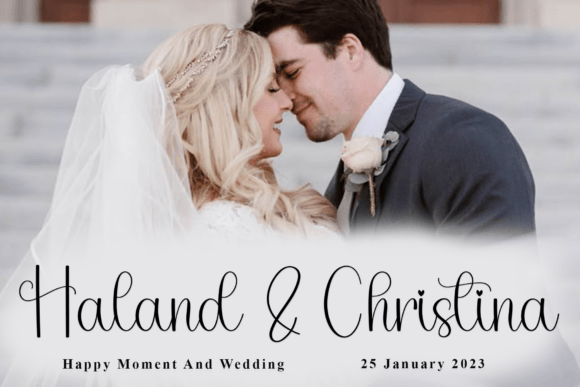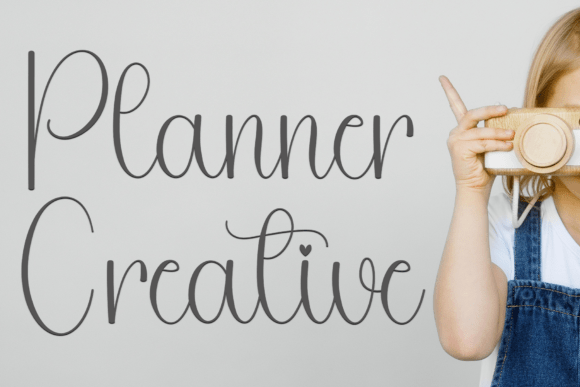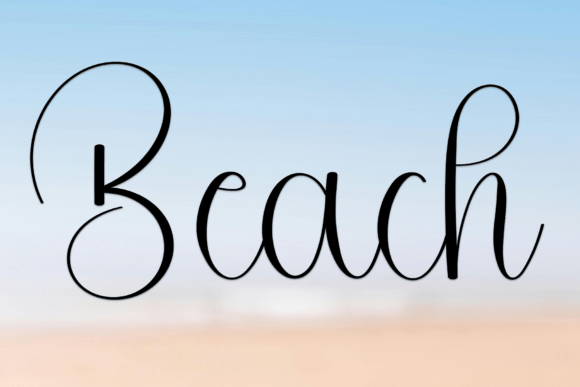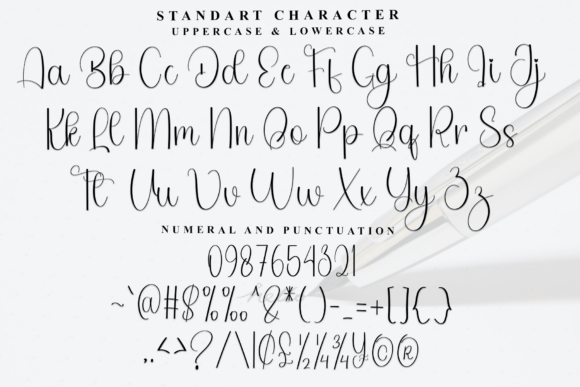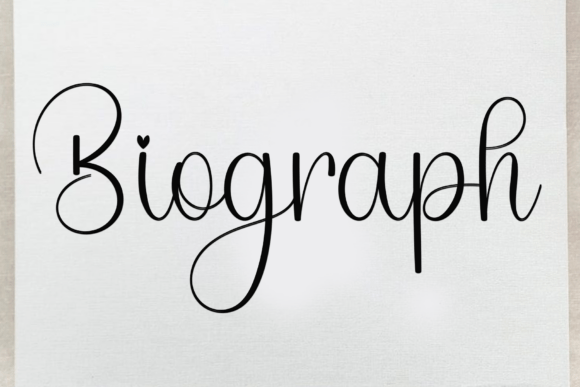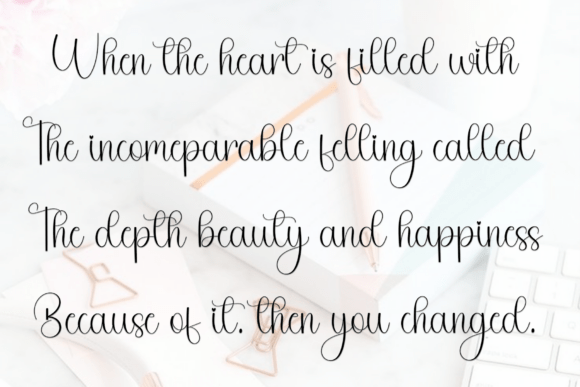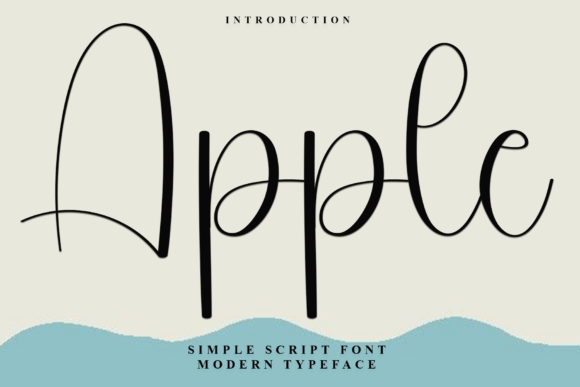
Introducing Apple Font: The Perfect Holiday Typeface
The holiday season is upon us, and what better way to get into the spirit than with a festive and merry typeface? Look no further than Apple Font, a decorative and whimsical font that’s sure to add a touch of enchantment to your designs. Whether you’re creating greeting cards, gift tags, or holiday-themed projects, this font is the perfect choice to bring a cheerful and nostalgic ambiance to your words.
Capturing the Spirit of the Holiday Season
Apple Font is a carefully crafted typeface that’s designed to evoke the magic and wonder of the holiday season. With its intricate details and decorative elements, this font is sure to transport your readers to a world of festive cheer and joy. From the twinkling lights to the snowflakes gently falling, Apple Font brings the spirit of the season to life in a way that’s both elegant and playful.
Whether you’re a professional designer or a crafter looking for a special touch, Apple Font is the perfect choice for your holiday projects. This font is ideal for a variety of applications, including:
- Greeting cards: Create beautiful and unique holiday cards that will stand out from the crowd.
- Gift tags: Add a personal touch to your gifts with custom gift tags that feature Apple Font.
- Holiday-themed projects: From invitations to party decorations, Apple Font is the perfect choice for any holiday project.
One of the best things about Apple Font is that it’s PUA (Private Use Area) encoded, which means you can access all of the amazing glyphs and ligatures with ease. This makes it simple to create beautiful and intricate designs that will impress your friends and family. With Apple Font, you can:
- Access a wide range of decorative elements, including snowflakes, holly leaves, and festive ornaments.
- Create custom ligatures that add a touch of whimsy to your designs.
- Use the font’s built-in swashes and flourishes to add a personal touch to your projects.
Why Choose Apple Font?
With so many fonts to choose from, why should you choose Apple Font for your holiday projects? Here are just a few reasons:
- Unique and festive design: Apple Font is unlike any other font on the market, with its intricate details and decorative elements.
- Easy to use: With its PUA encoding, Apple Font is simple to use and access, even for beginners.
- Versatile: This font can be used for a wide range of applications, from greeting cards to holiday decorations.
Tips and Tricks for Using Apple Font
To get the most out of Apple Font, here are a few tips and tricks to keep in mind:
- Experiment with different sizes and colors to create a unique look.
- Use the font’s built-in swashes and flourishes to add a personal touch to your designs.
- Combine Apple Font with other fonts to create a custom look that’s all your own.